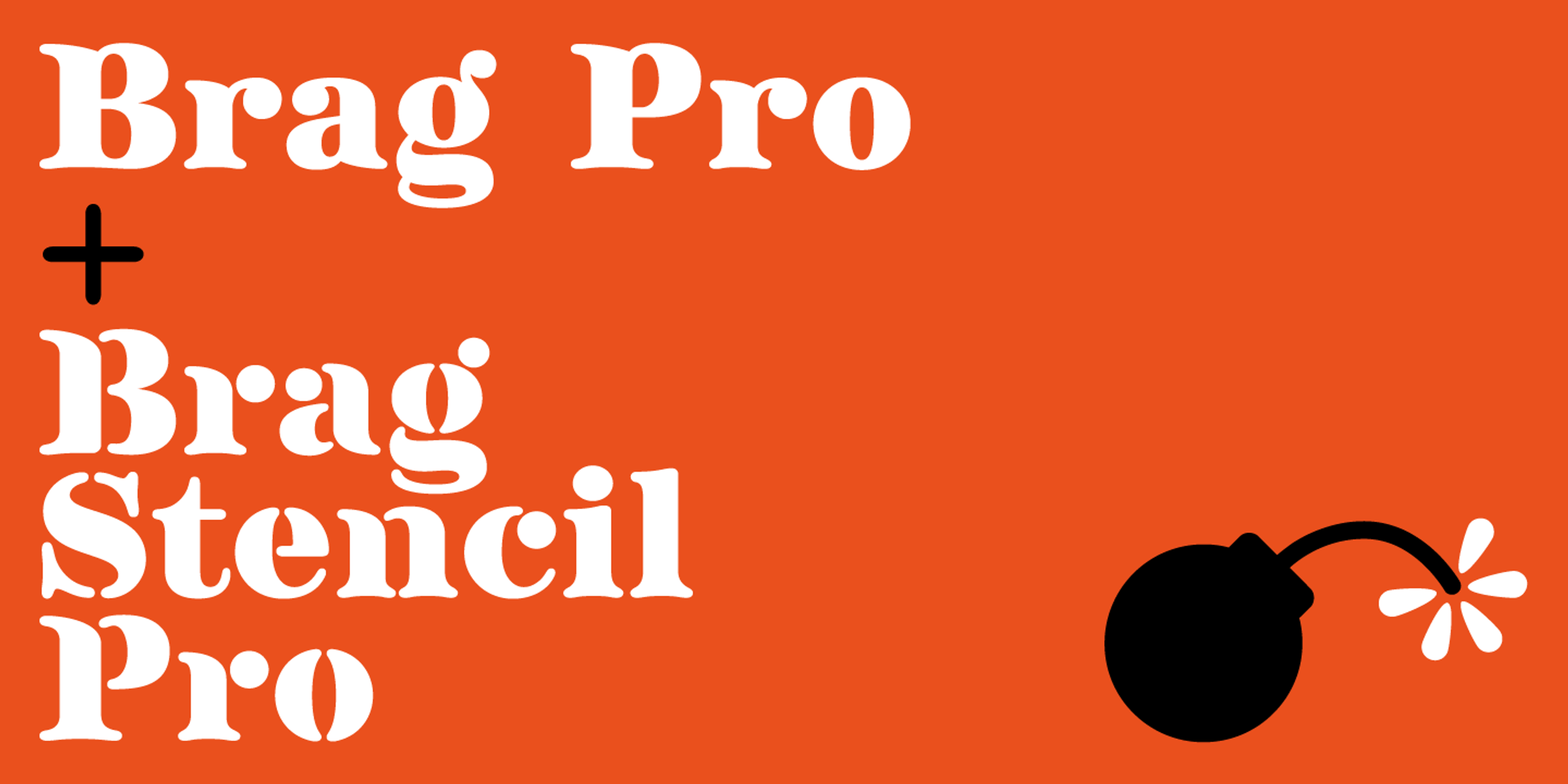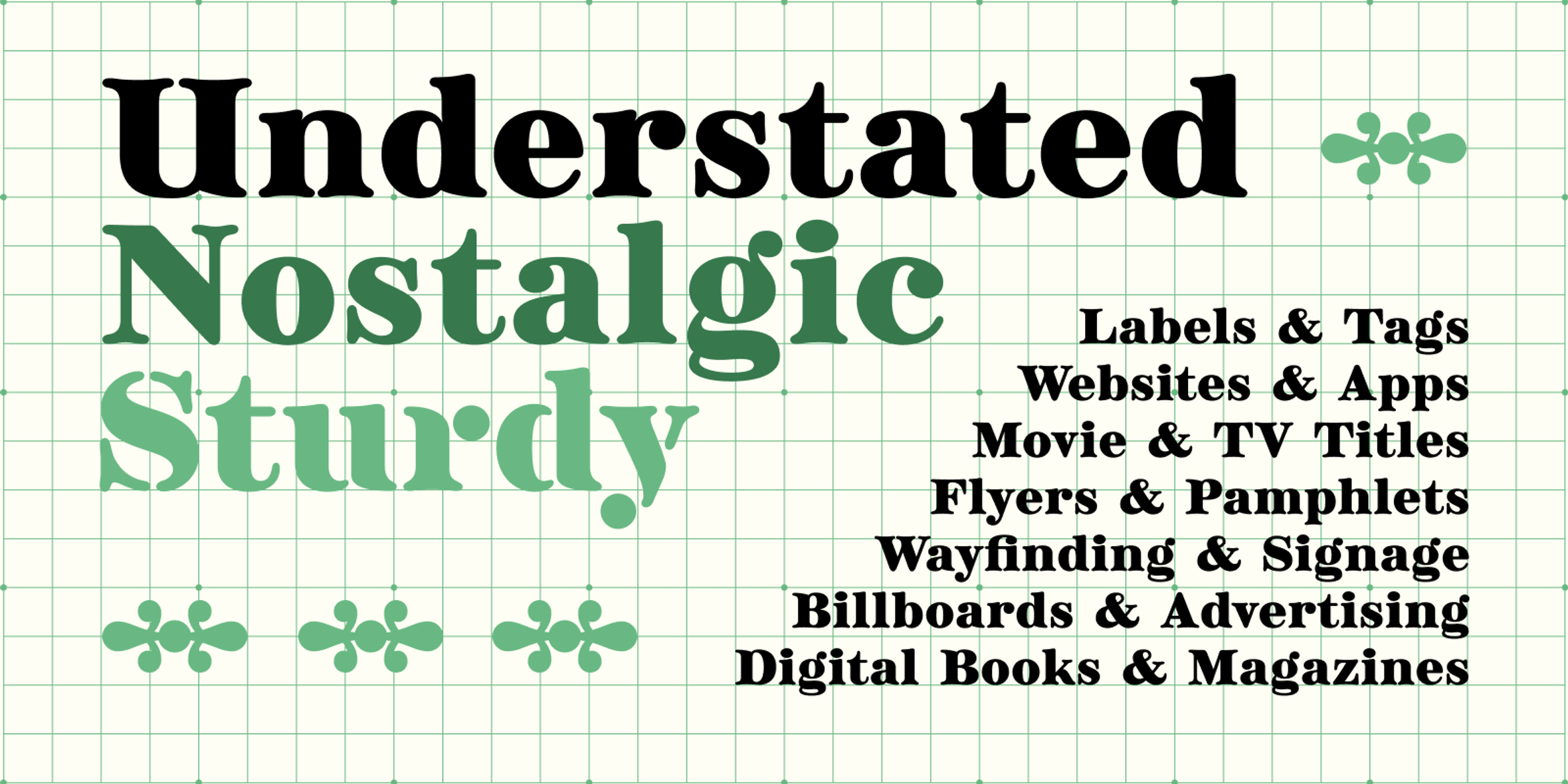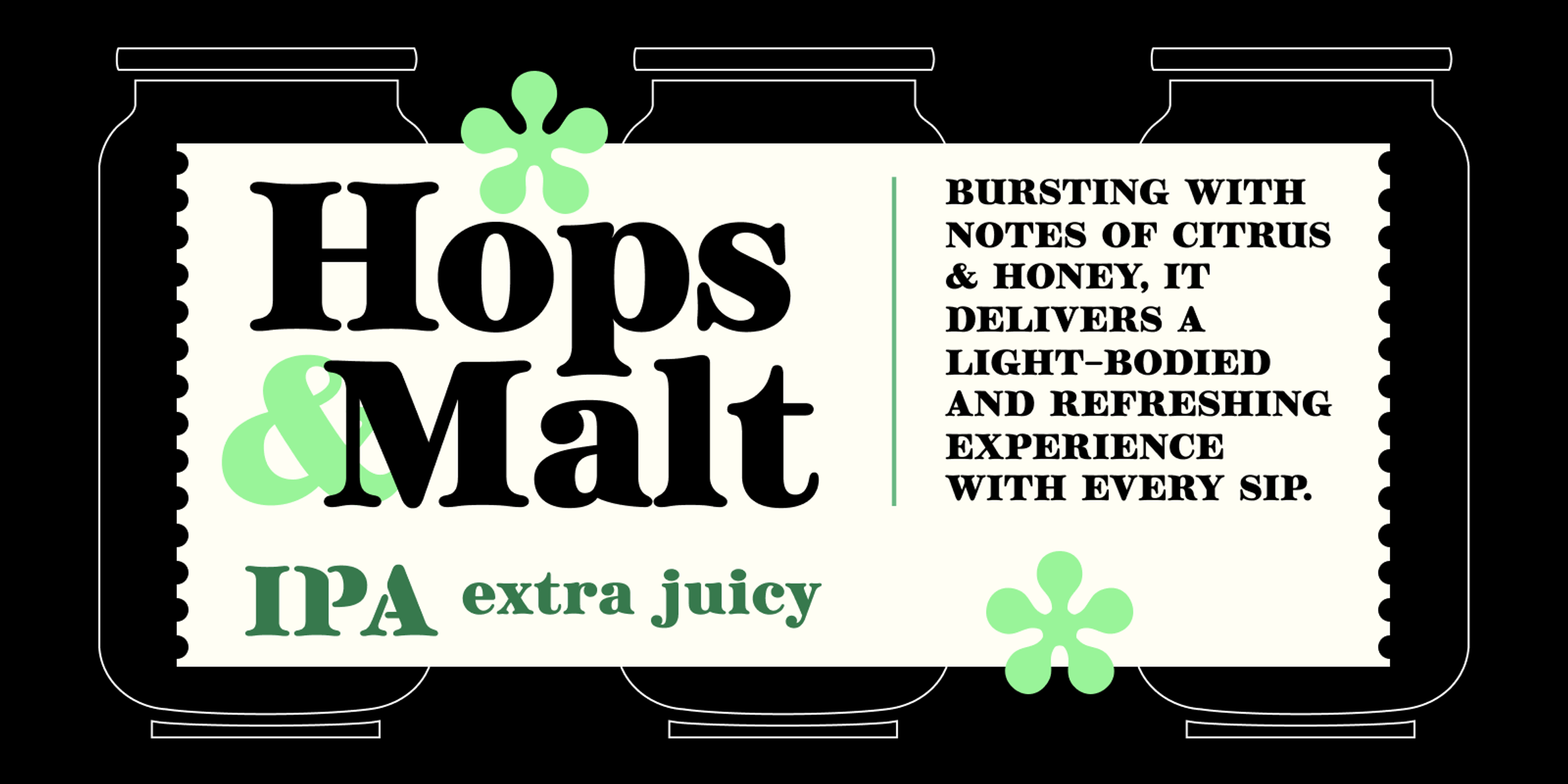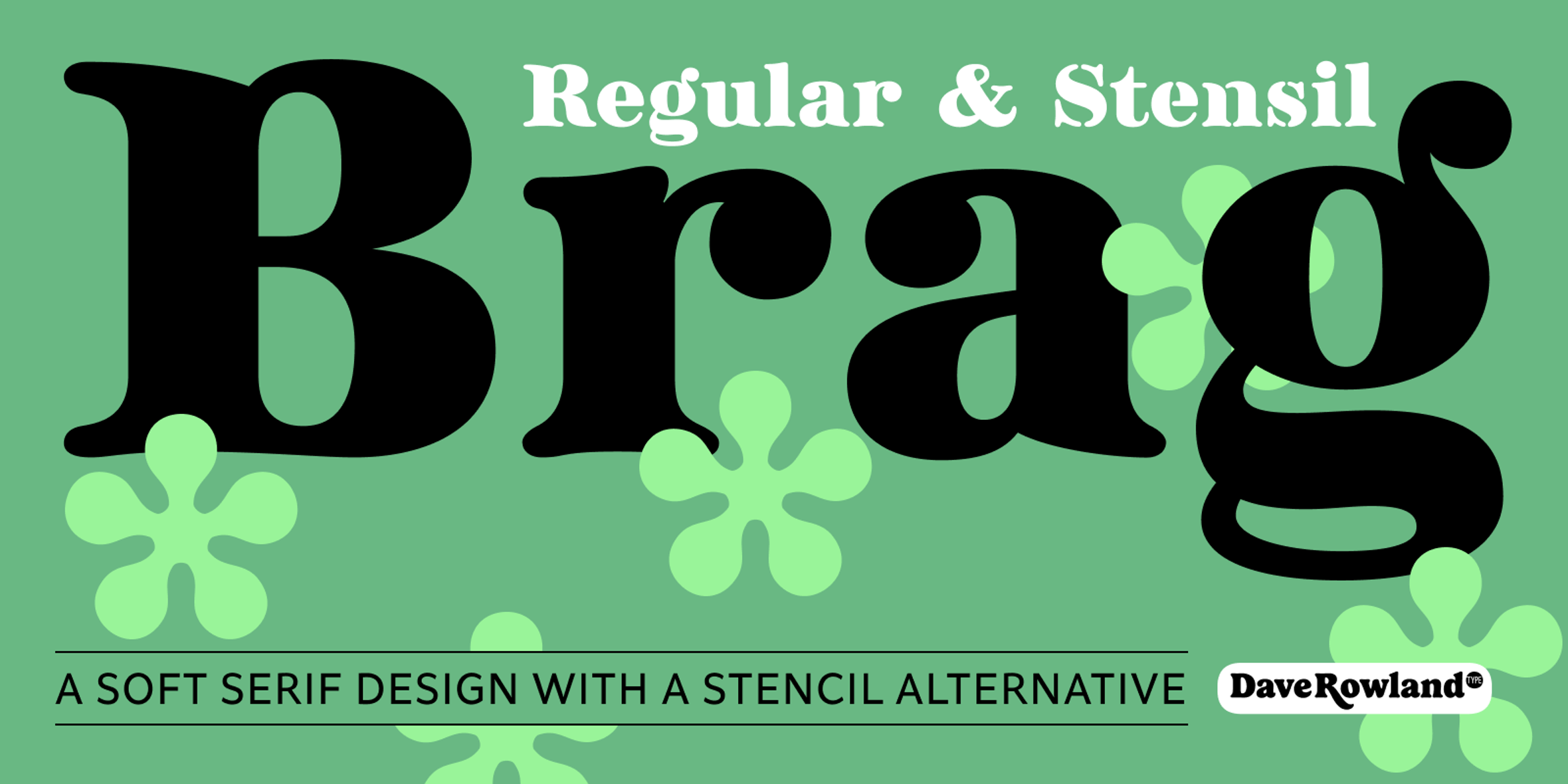
Brag Font Family
Brag Regular
Brag Stencil
Brag
Brag is a squat, bold, soft serif design with a stencil alternative. It is transitional and vintage in a way that feels as if it were taken from an old biscuit tin or ephemeral fruit crate label. Understated, friendly, and sturdy without being bland, cloying, or stuffy. Brag is eager to be used on all-natural food packaging, gardening equipment displays, collectible books of poetry, and microbrewery branding. Pairs well with others but can stand on its own; give Brag a try!
- Common Ligatures
- Old Style Numerals
- Stylistic Alternates